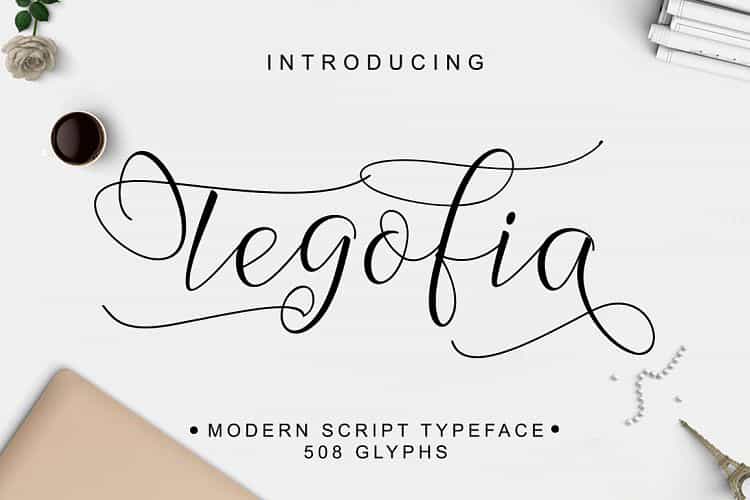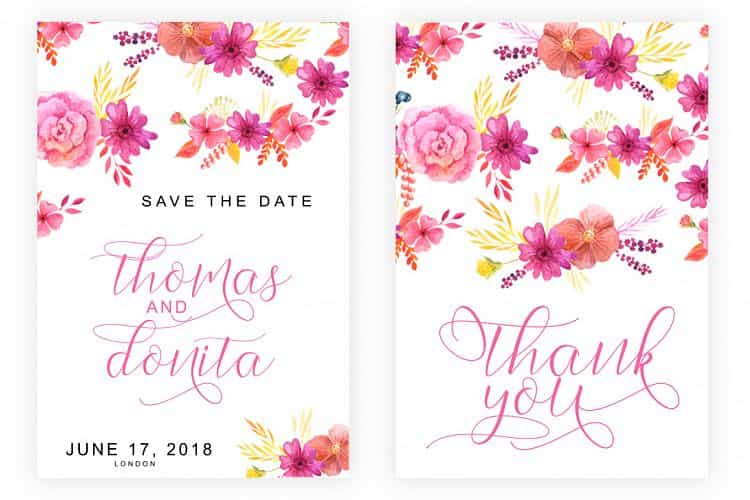
Tegofia Script is a modern script with a handmade calligraphy style, decorative characters and a dancing baseline!Thus, the invitation can be made so beautiful with greeting cards, branding materials, business cards, quotes, posters, and more!